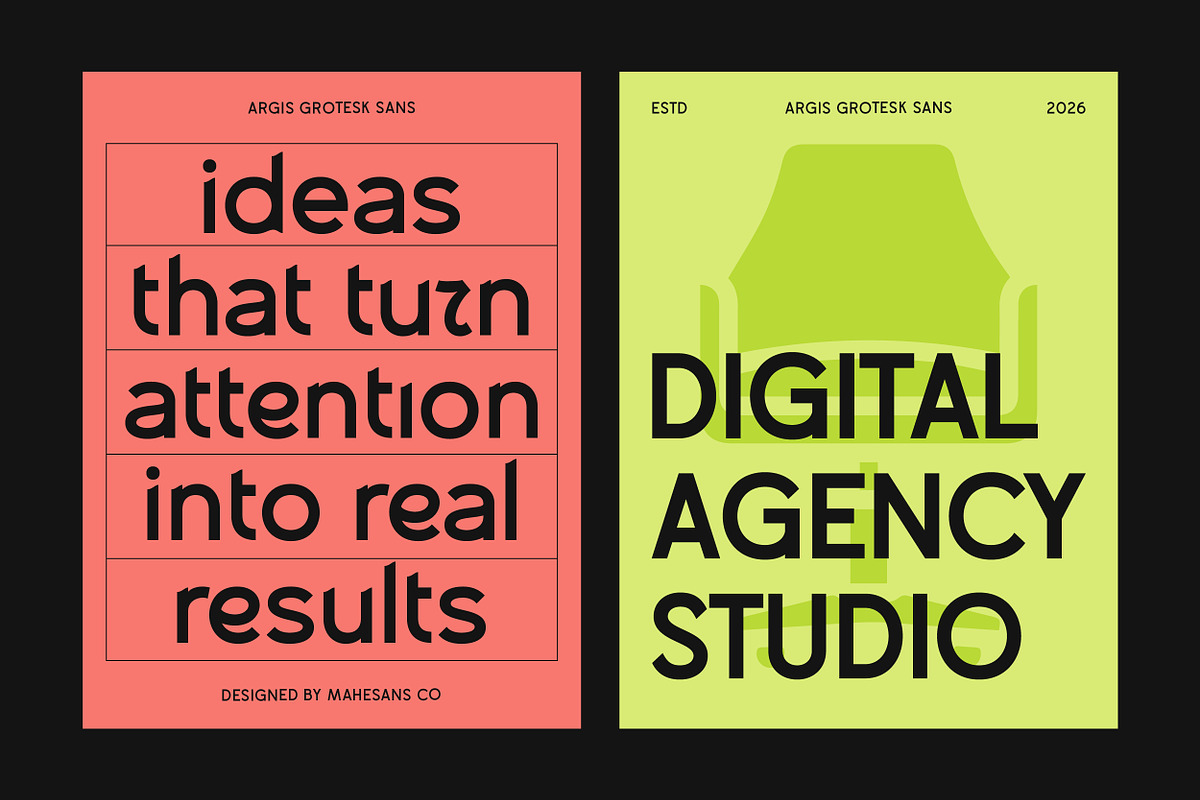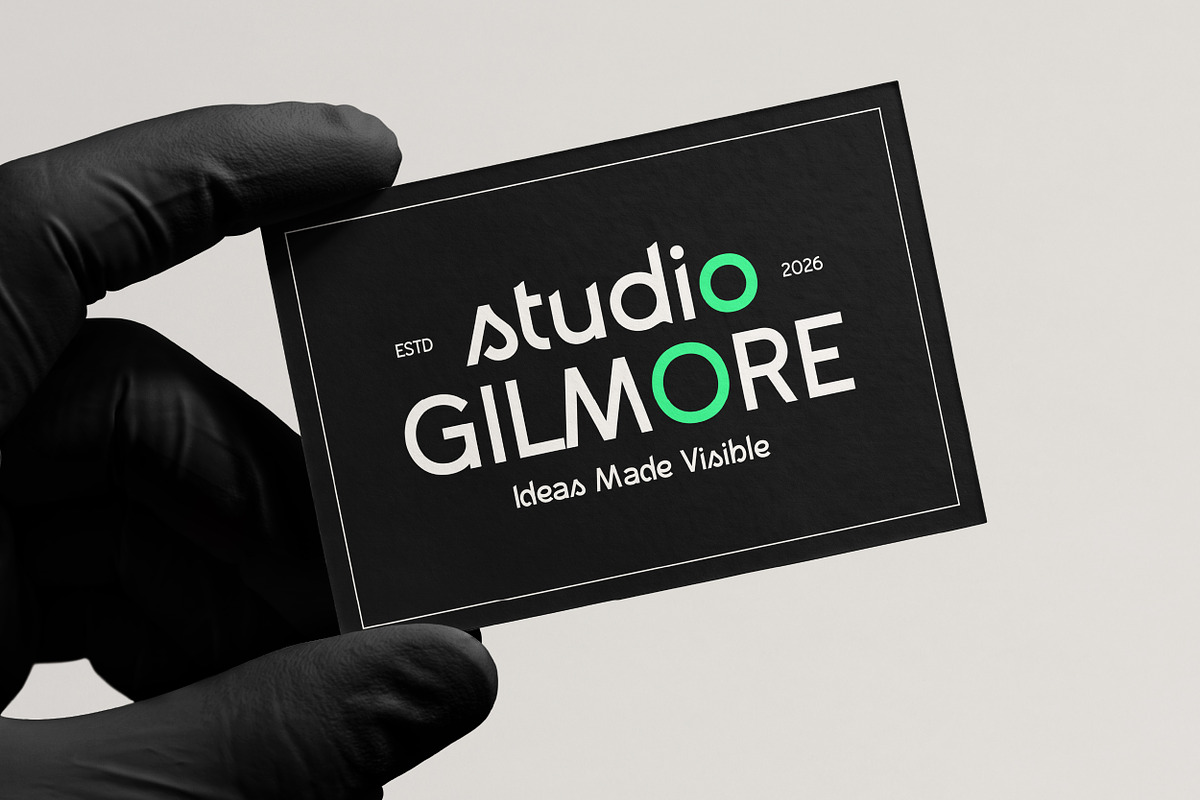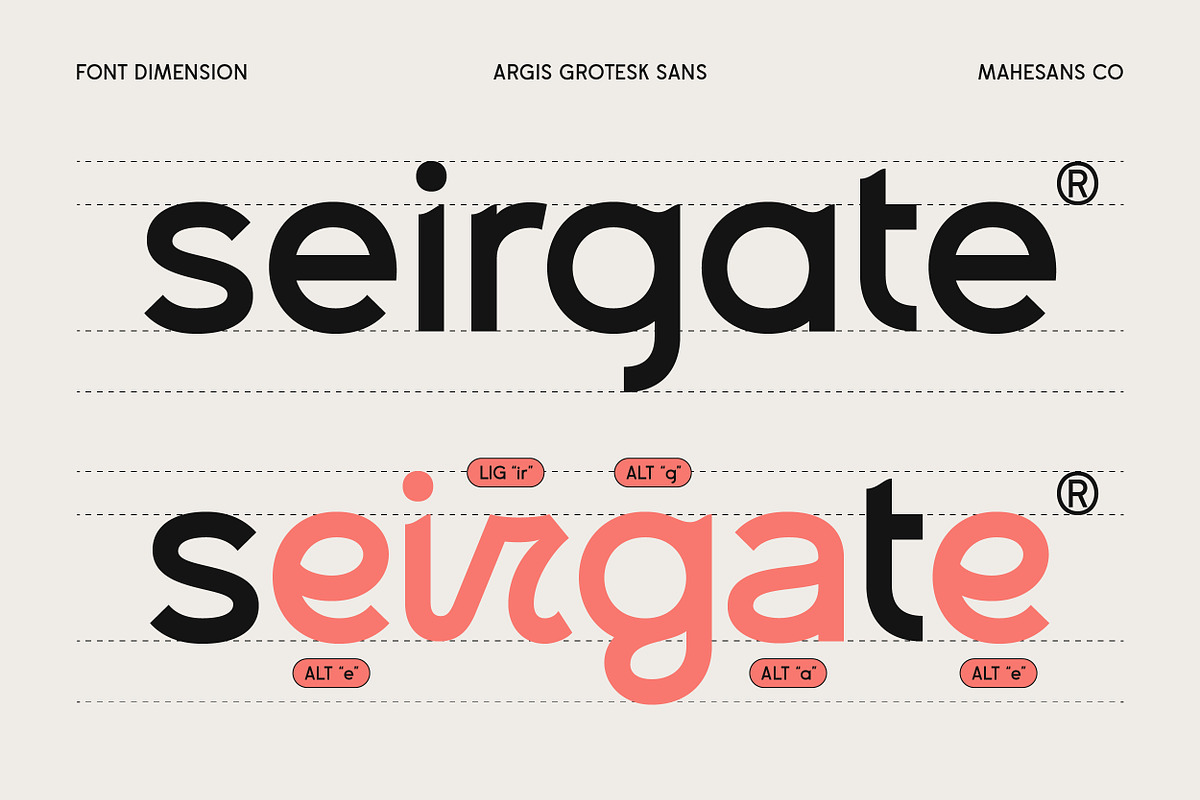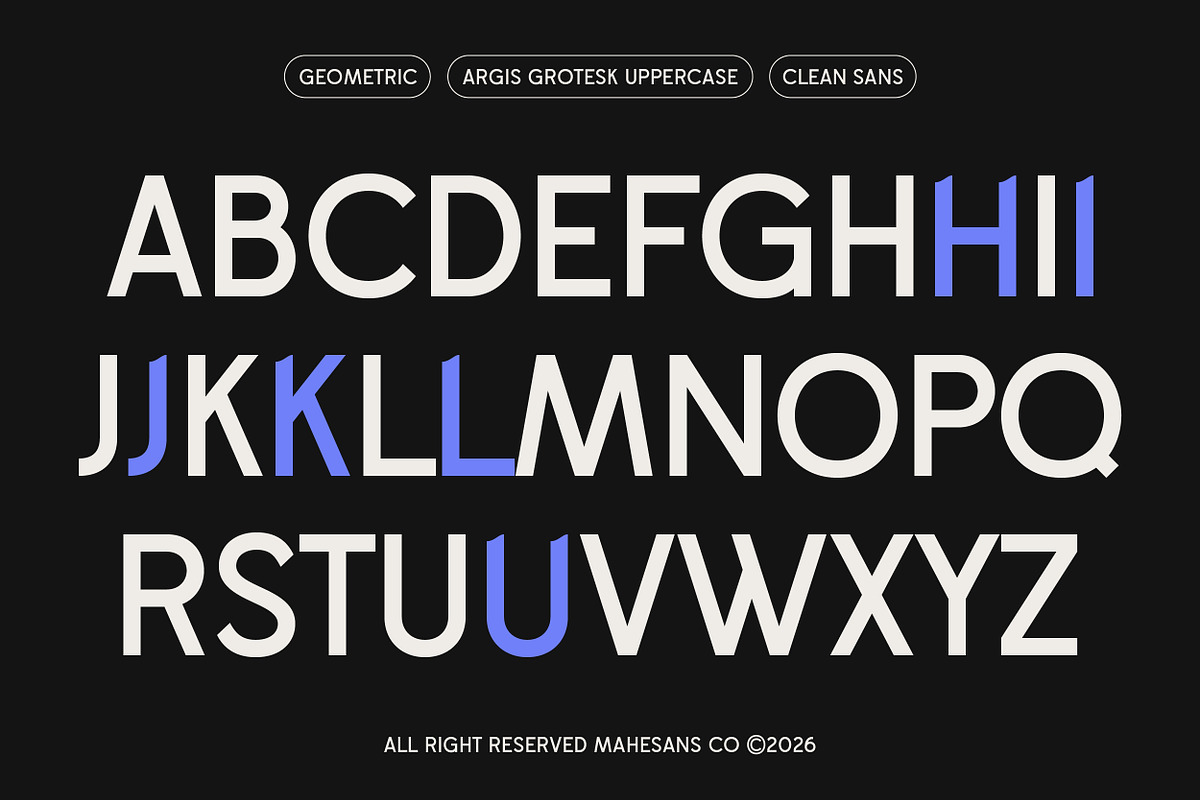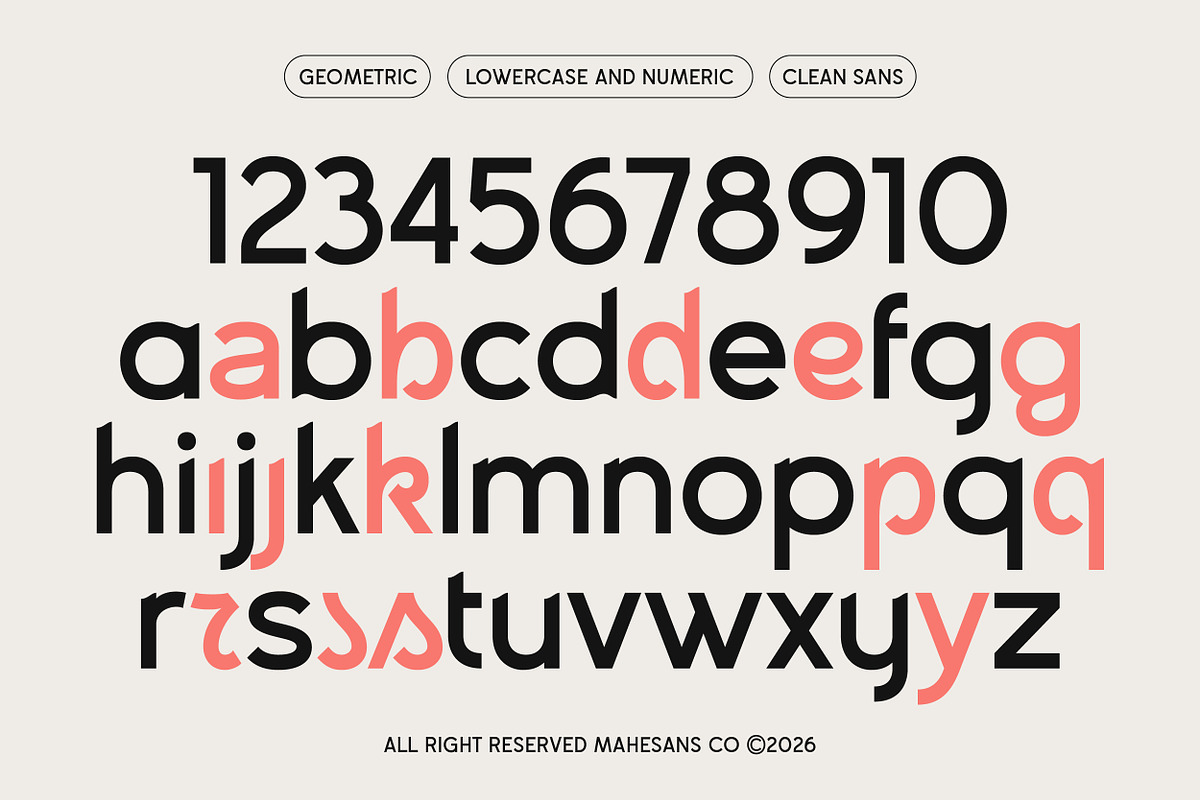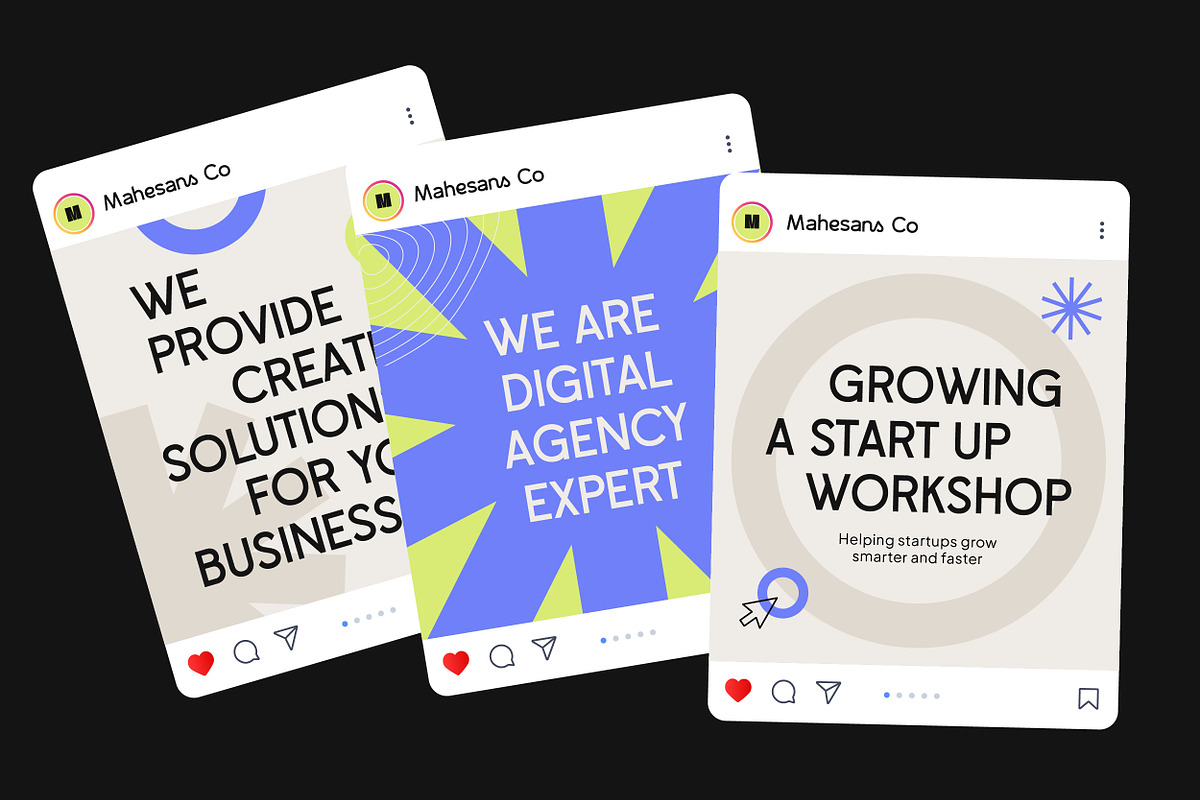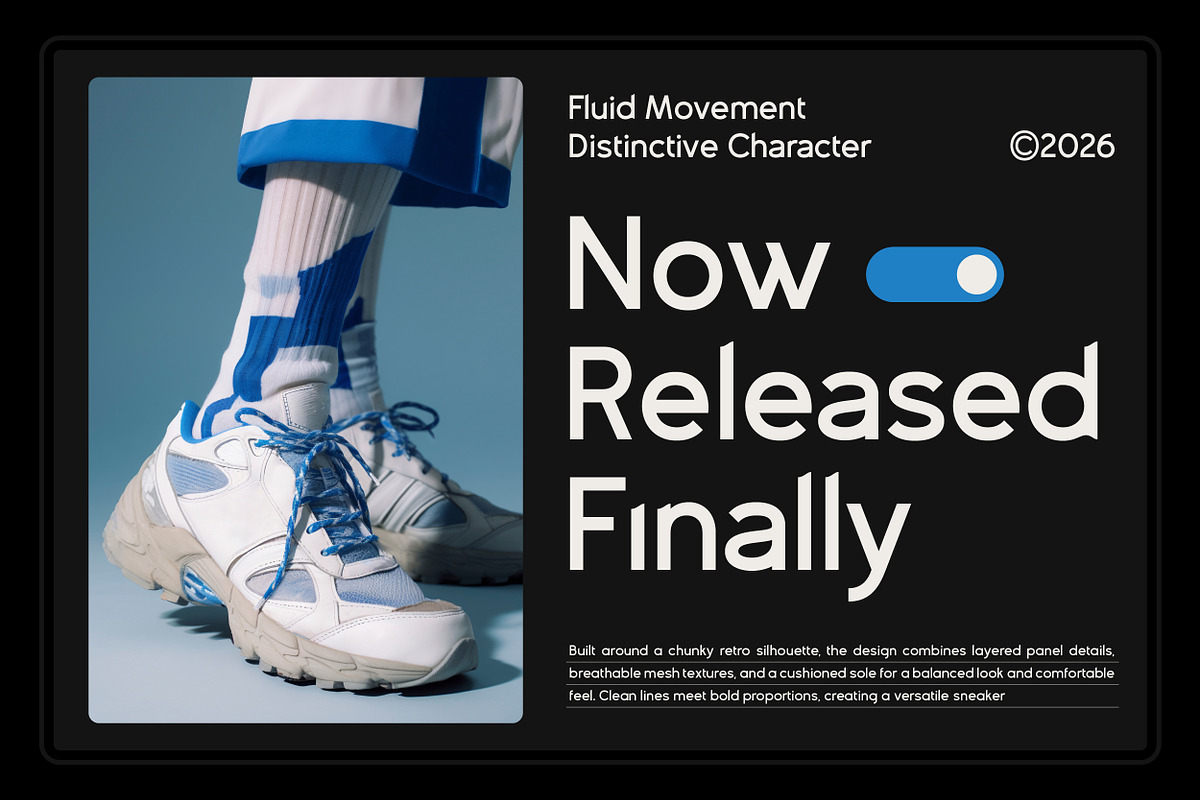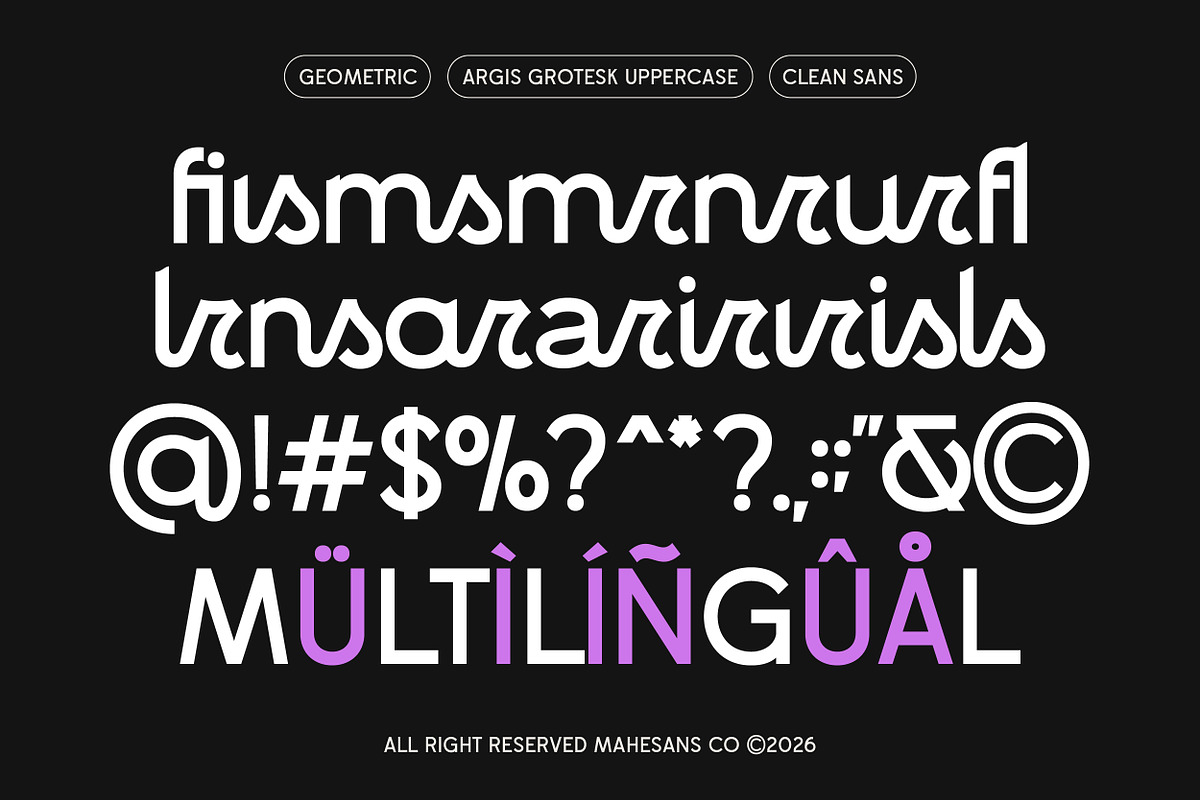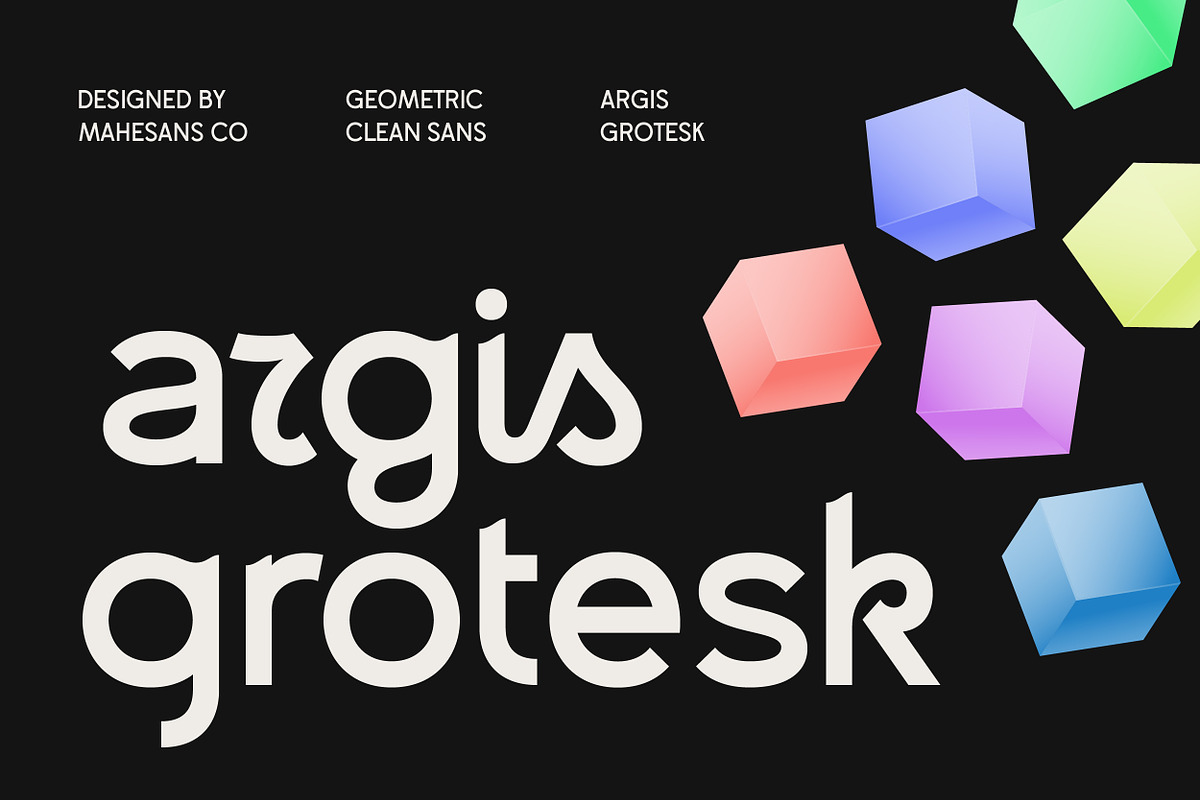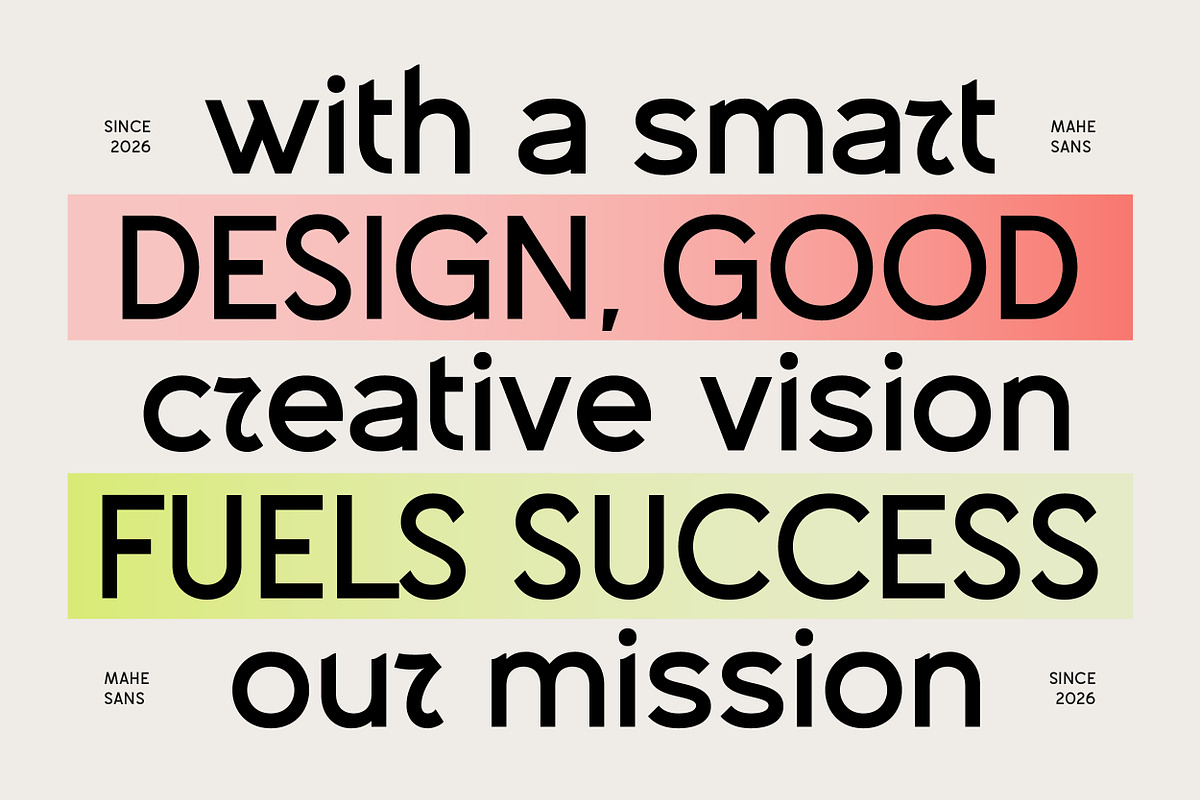
Argis – Geometric Clean Sans Serif
Argis Grotesk is a modern geometric sans serif designed with a clean, distinctive character and carefully crafted proportions. Its bold forms, geometric construction, and subtle stylistic details give it a contemporary look while keeping the typography highly readable and versatile.
With its unique letterforms, alternative characters, and ligature options, Argis Grotesk can easily shift from clean and professional to expressive and experimental.